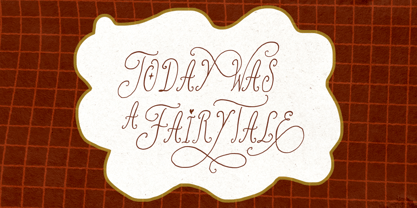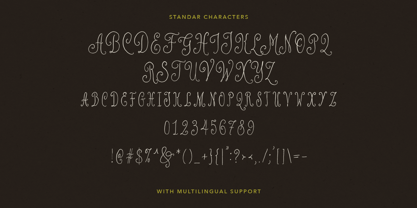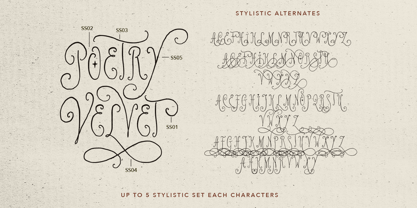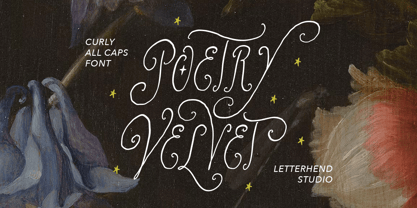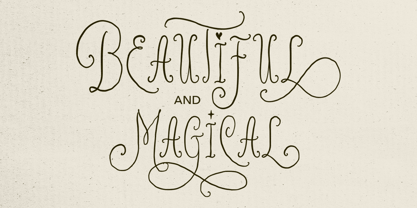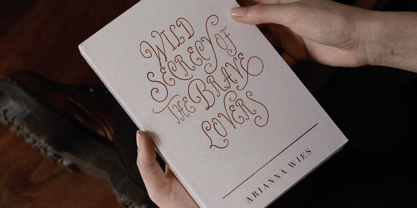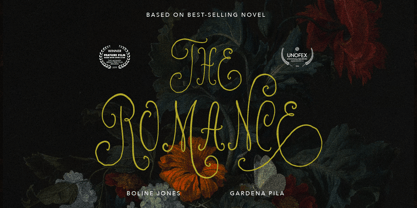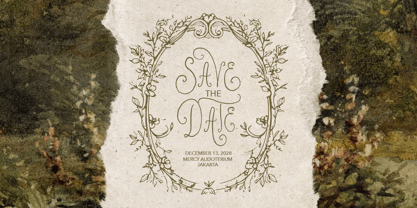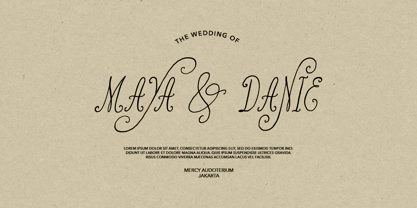
Poetry Velvet
por Letterhend
La familia tipográfica Poetry Velvet fue diseñada por Hendry Juanda y publicada por Letterhend. Poetry Velvet contiene 2 estilos y opciones de paquete familiar. Más información sobre esta familia
Every letter in Poetry Velvet flows with graceful curves and enchanting flourishes, creating an atmosphere that feels both timeless and dreamlike. Its slender all-caps forms are adorned with expressive swashes and playful curls, giving each word the charm of handcrafted lettering while maintaining a refined, decorative presence.
Features :
• Uppercase & lowercase
• Numbers and punctuation
• Alternate Characters
• Multilingual Support
Diseñadores: Hendry Juanda
Fundición: Letterhend